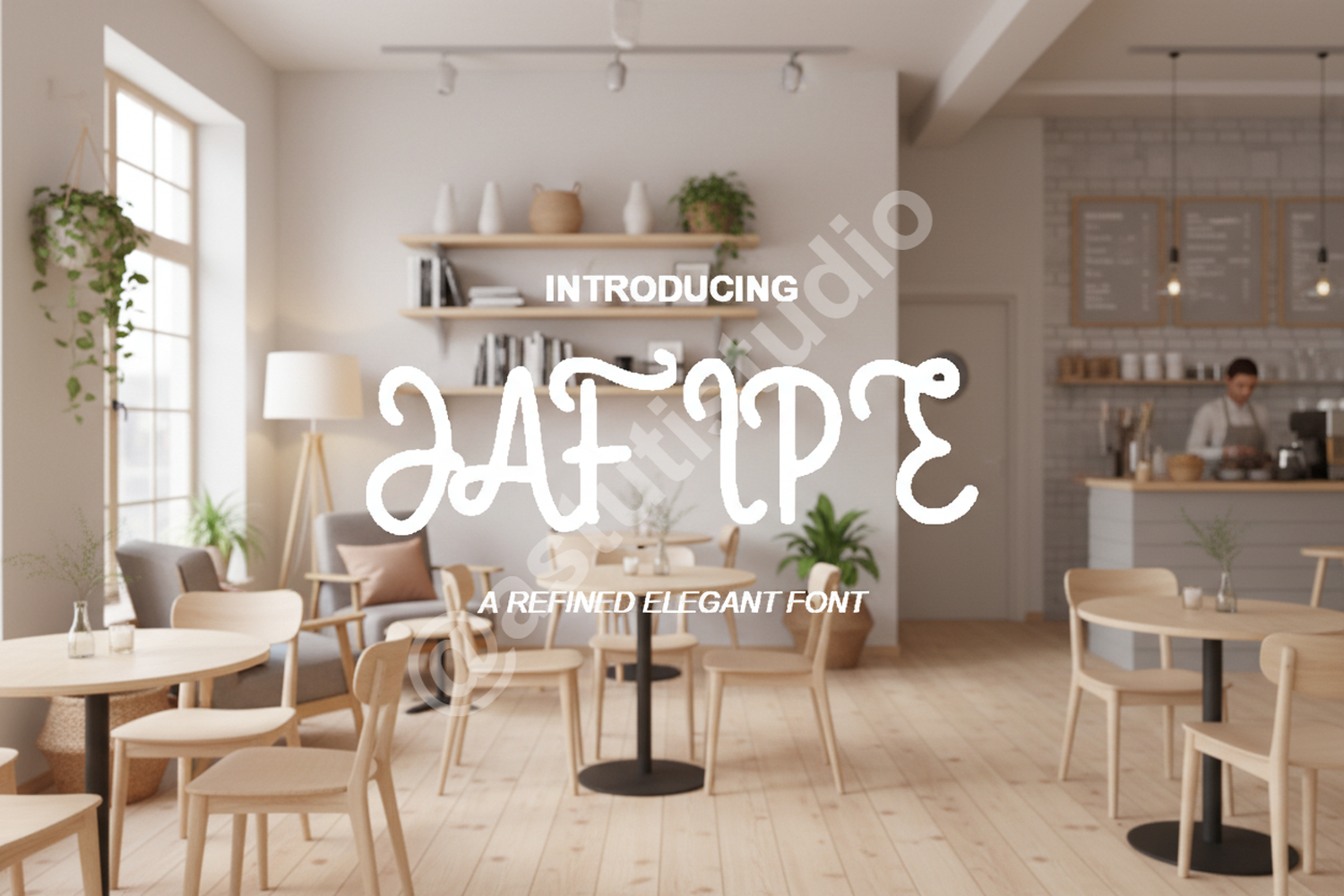
Jafipe - Sophisticated Modern Sans Serif Typeface
Jafipe
Elevate your design projects with Jafipe, a premium modern sans-serif typeface that strikes the perfect balance between professional structure and creative flair. Jafipe was meticulously crafted to ensure high legibility and a timeless aesthetic, making it an essential addition to any designer's toolkit whether you are working on high-end corporate branding or minimalist creative layouts.